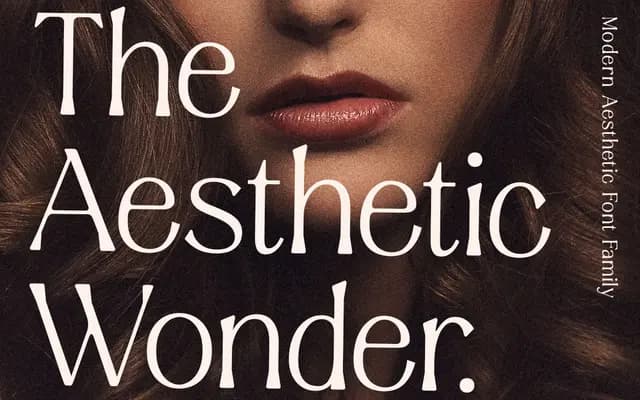
Aesthetic Wonder
Prioritype · 2024
A variable modern serif in eight weights aimed at branding, fashion and editorial work across a wide Latin language range.
Eight weights from ExtraLight to Black, available as a variable font alongside static OTF, TTF and WOFF files. Coverage spans a broad range of Latin-script languages including many African and European tongues. Positioned at fashion, cosmetic and lifestyle branding markets, though the design itself is fairly generic within that segment.
Described by the foundry as a modern serif; the naming conventions and styling suggest a high-contrast display serif in the contemporary fashion-adjacent mould, with variable font support across eight weights.